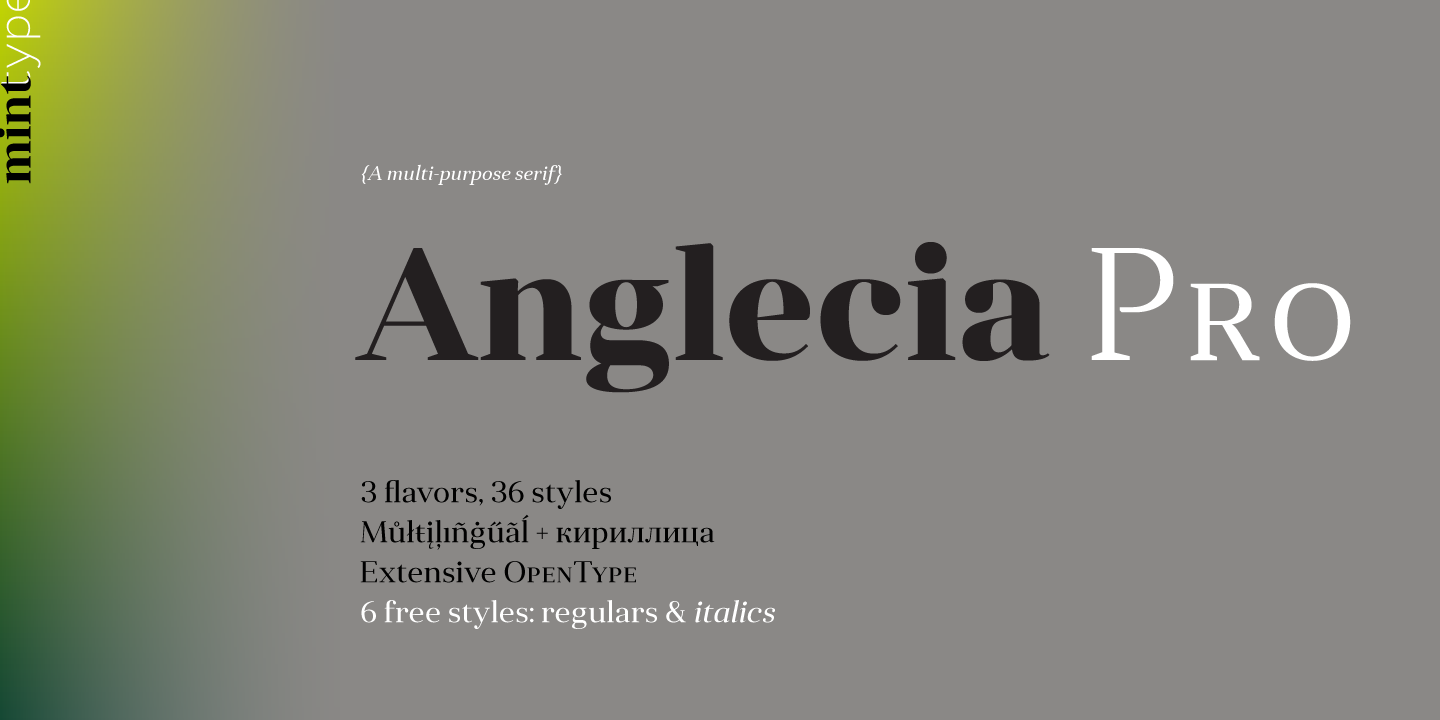
This transitional serif typeface is perfect for editorial layouts, book typesetting, branding, and magazine headlines.
The Anglecia Pro Font is exciting because its elegant, versatile design with three distinct styles—Text, Display, and Title—offers a harmonious balance of tradition and modernity for stunning typography.
Its font family includes 36 styles, such as Anglecia Pro Text, Anglecia Pro Display, and Anglecia Pro Title, with weights like Light, Regular, Medium, Bold, and their italics, ensuring creative flexibility.
Searching for a font that blends classic elegance with modern versatility? Anglecia Pro Font Free Download is an ideal choice for designers seeking a sophisticated serif typeface. Designed by Andriy Konstantynov and published by Mint Type in 2014, this font family comprises three subfamilies—Text, Display, and Title—each tailored for specific editorial needs. With 36 styles, it supports numerous Latin and Cyrillic languages, making it perfect for global projects in both digital and print media.
The Anglecia Pro Font excels in applications requiring refined typography. Anglecia Pro Text is ideal for book typesetting and body text, offering a warm, traditional texture with a small x-height and prominent ascenders. Anglecia Pro Display, with its high contrast and thinner serifs, shines in decorative headlines, logos, or pull quotes. Anglecia Pro Title is perfect for bold magazine headlines or posters, ensuring impactful visuals. Designers also use it for branding, packaging, or social media graphics, where its elegant versatility enhances Instagram posts or YouTube thumbnails.
What makes the Anglecia Pro Font Free Download so compelling is its exquisite design and functionality. Each style includes OpenType features like ligatures, small caps, six sets of digits, fractions, and language-specific alternates for Polish, Romanian, and Turkish, ensuring creative flexibility in tools like Adobe Illustrator or InDesign. Its Cyrillic support offers two flavors—traditional curvy or formal rigid—accessible via OpenType alternates, catering to diverse aesthetic needs. The font supports @font-face for web embedding, ensuring seamless integration.